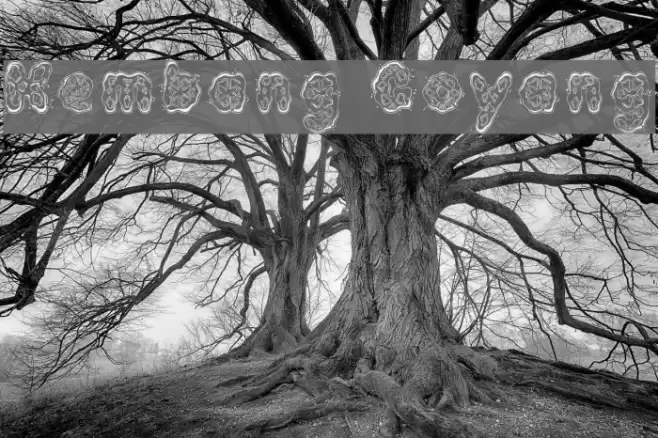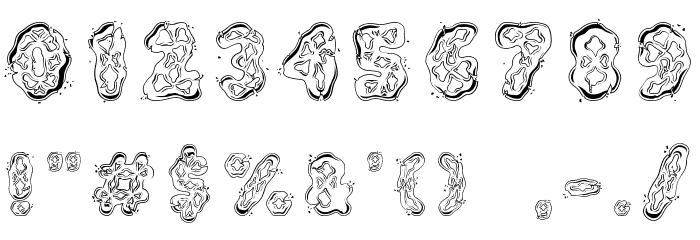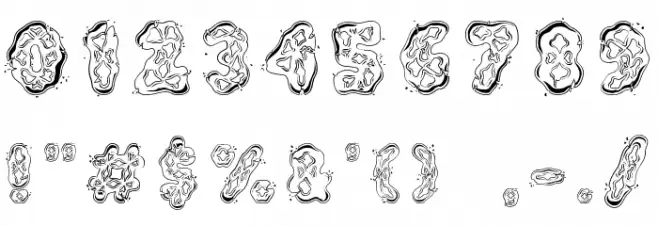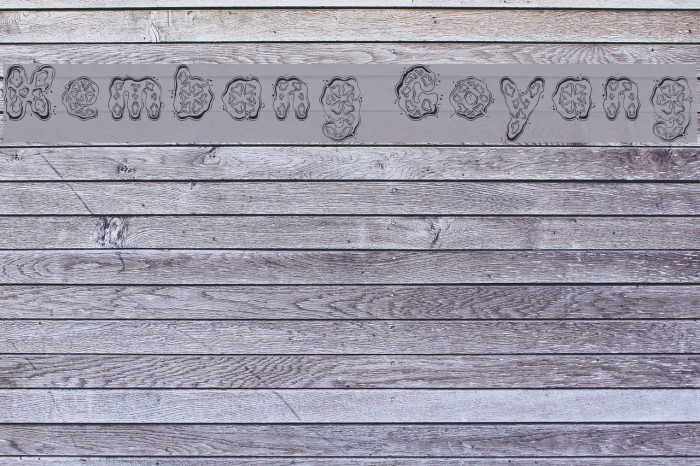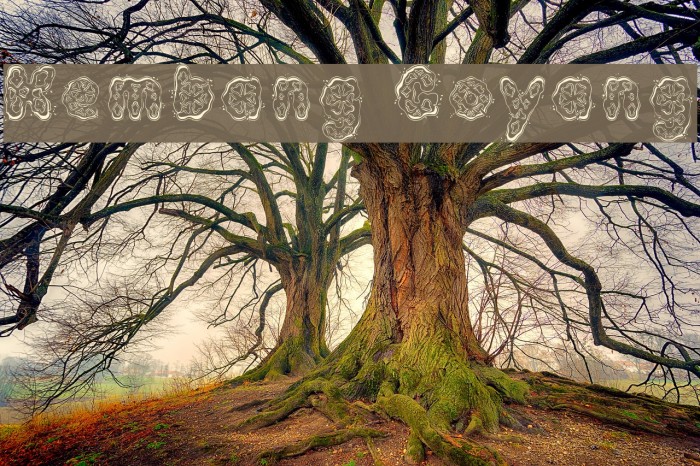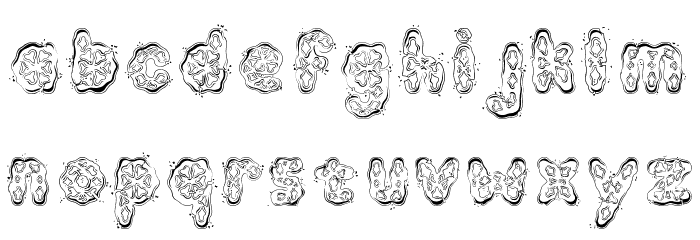
Kembang Goyang Font
Kembang Goyang Description
This font features a highly decorative and intricate design, with each character appearing as if it is composed of swirling, organic shapes. The letters have a playful and whimsical quality, reminiscent of abstract art or fluid patterns. The complexity of the design gives it a unique texture, making it stand out as a display font. The characters are bold and have a substantial presence, with each letterform being distinct and easily recognizable despite the elaborate detailing. This font is ideal for projects that require a touch of creativity and artistic flair.
A decorative and intricate font with swirling, organic shapes from Decorative fonts.
- Proposed Projects: Ideal for artistic projects, creative branding, posters, and unique invitations.